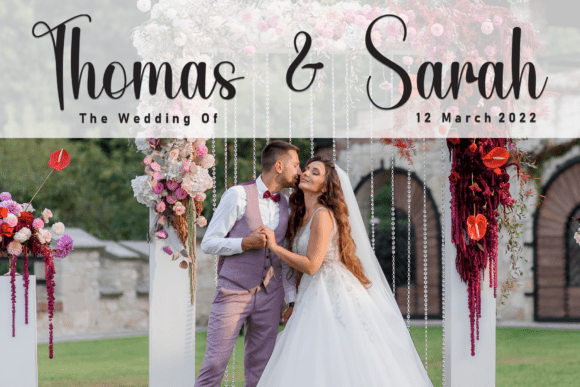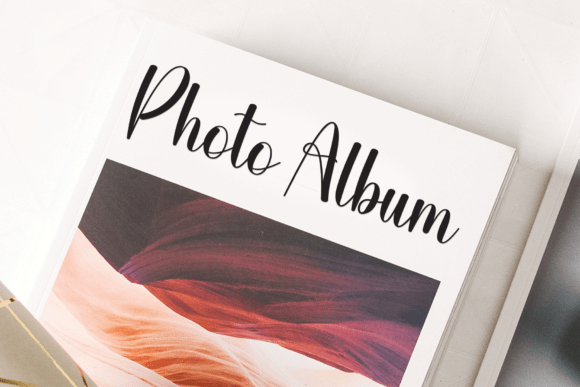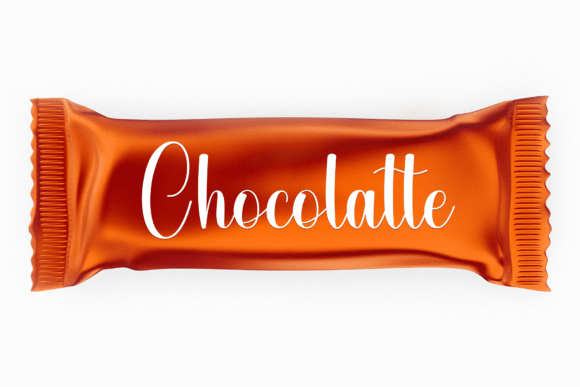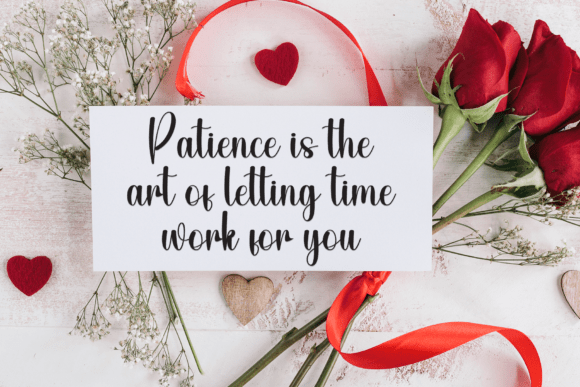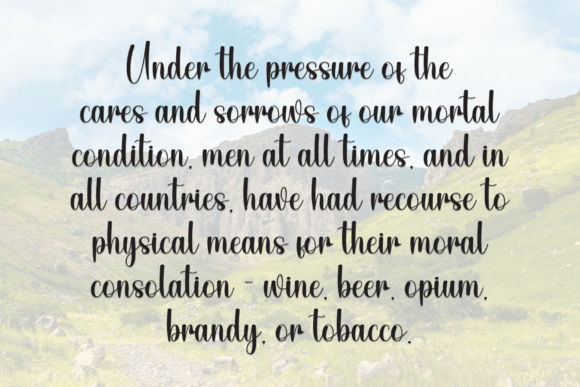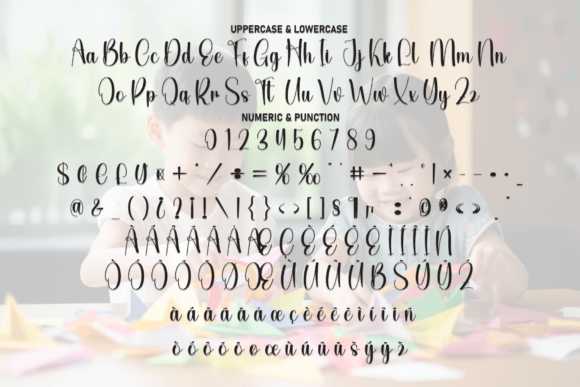
The Sweet Spot: Discovering the Charm of Childern Font
I’ll never forget the time I was working on a wedding invitation project, and my client asked for a font that was “whimsical, yet elegant.” I scoured the internet, tried out dozens of fonts, but nothing seemed quite right. That was until I stumbled upon Childern Font. With its delightful nuances and cheerful essence, this charming handwritten display font embodies both sweetness and amiability. It was love at first sight! 💕
So, what makes Childern Font so special? Here are a few things that I absolutely adore:
- ✨ Sweet and playful vibe: Childern Font has a unique ability to add a touch of whimsy to any design, making it perfect for wedding invitations, cards, and other projects that require a bit of personality.
- ✅ Elegant yet approachable: This font strikes the perfect balance between elegance and approachability, making it suitable for a wide range of design projects.
- 💫 Delightful nuances: From subtle flourishes to charming ligatures, Childern Font is full of delightful nuances that add depth and character to your designs.
Of course, no font is perfect, and Childern Font has a few small quirks to keep in mind:
- 🤔 Limited use in body text: While Childern Font is perfect for headlines and titles, it may not be the best choice for body text due to its playful, cursive nature.
- ⚠️ Some glyphs may require manual adjustment: Depending on the platform or software you’re using, you may need to manually adjust some glyphs to get the best results.
The Story Behind Childern Font
Childern Font was designed with the intention of creating a font that was both playful and elegant. The designer wanted to craft a font that would add a touch of whimsy to any design, while still maintaining a level of sophistication. The result is a font that’s perfect for wedding invitations, cards, and other projects that require a bit of personality.
Here are a few frequently asked questions about Childern Font:
- Q: What type of projects is Childern Font best suited for?
- A: Childern Font is perfect for wedding invitations, cards, and other projects that require a playful and whimsical touch.
- Q: Is Childern Font available in different styles or variations?
- A: Currently, Childern Font is available in a single style, but the designer may release additional variations in the future.